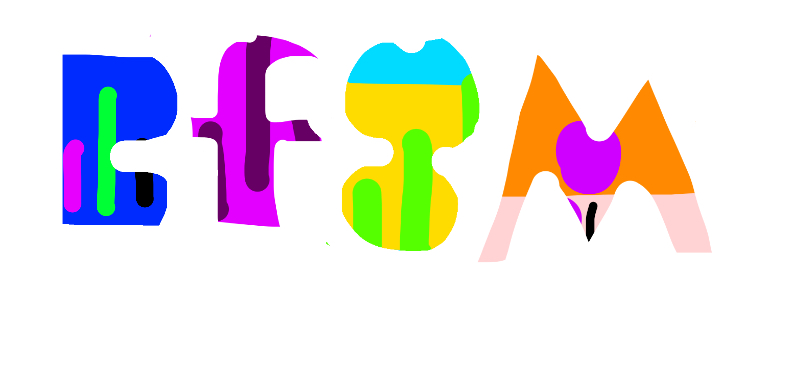
We identified the font from the uploaded image:
Here are some possible matches:
Arial – A widely used sans-serif typeface known for its clarity and legibility.
Helvetica – A classic, modern sans-serif font that is highly readable and versatile.
Imago – A clean and contemporary sans-serif font, ideal for professional documents.
Tahoma – A humanist sans-serif font designed for clarity on screens and print.
Verdana – Known for its simplicity and large, open forms which enhance readability.